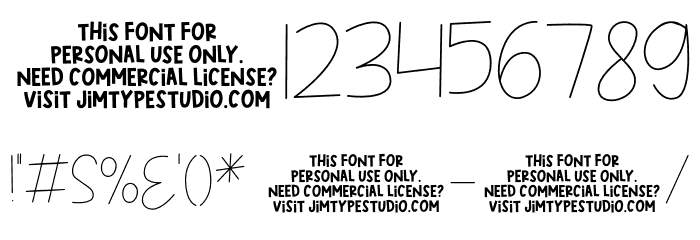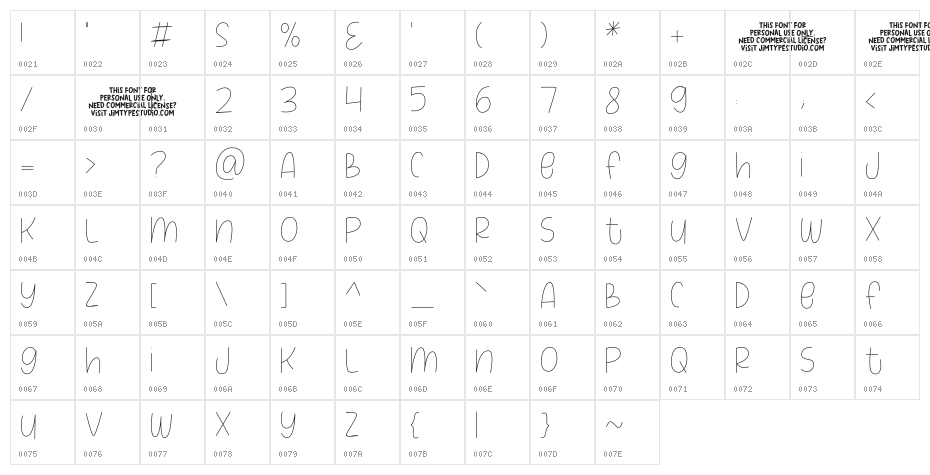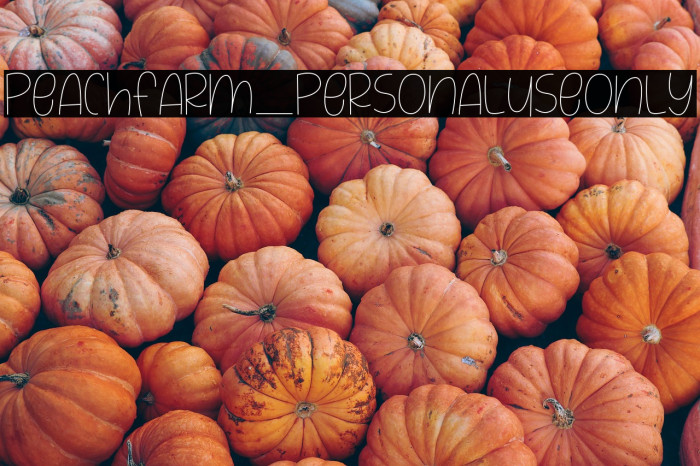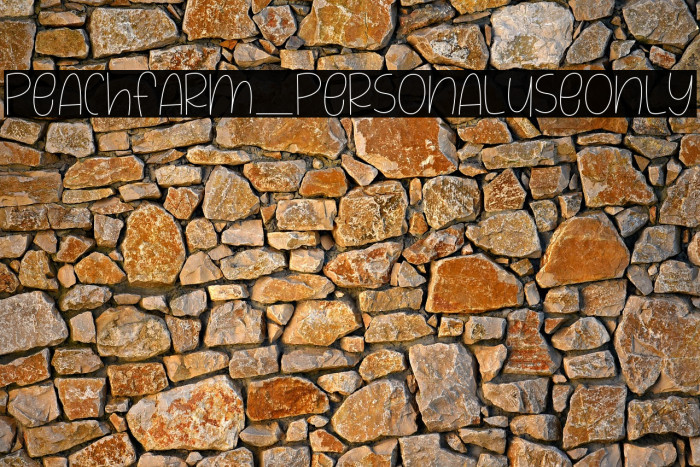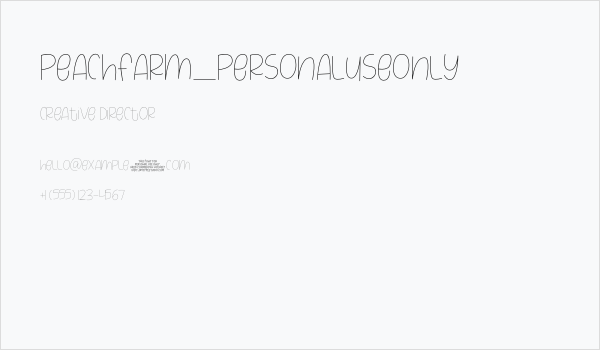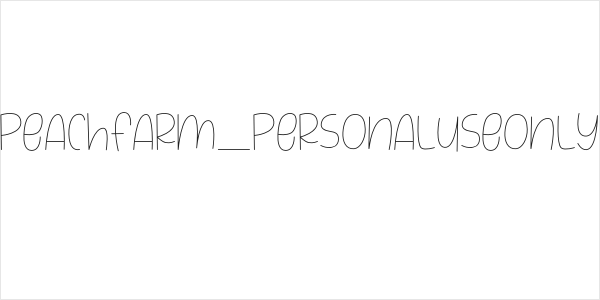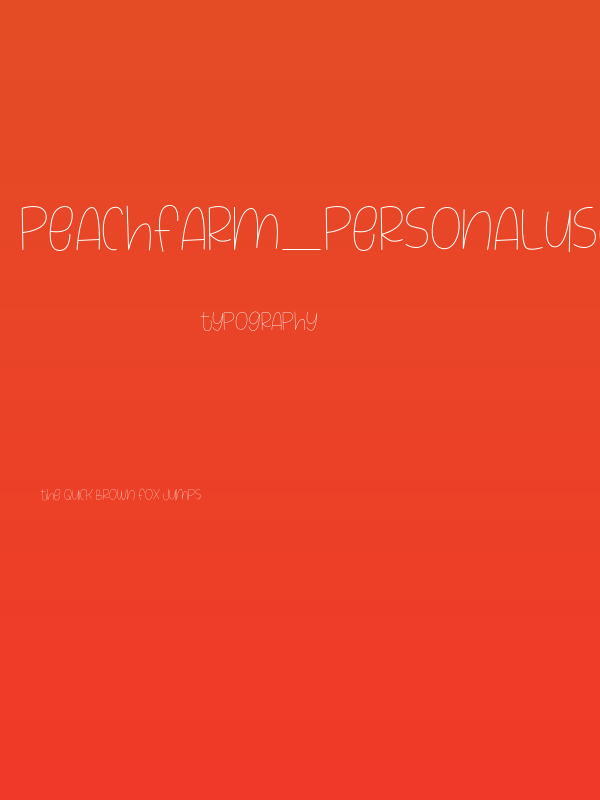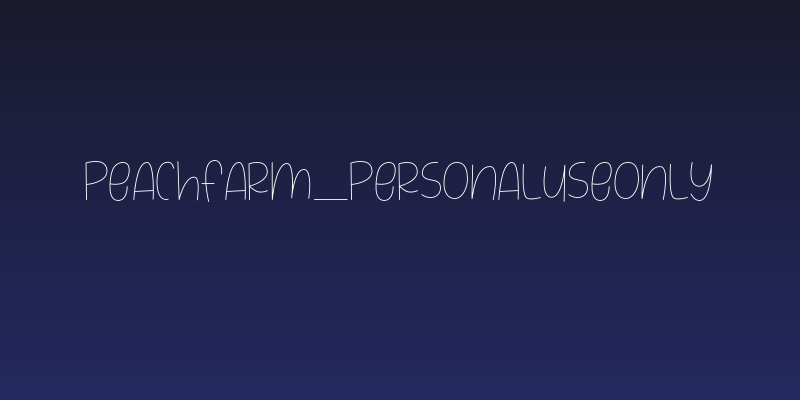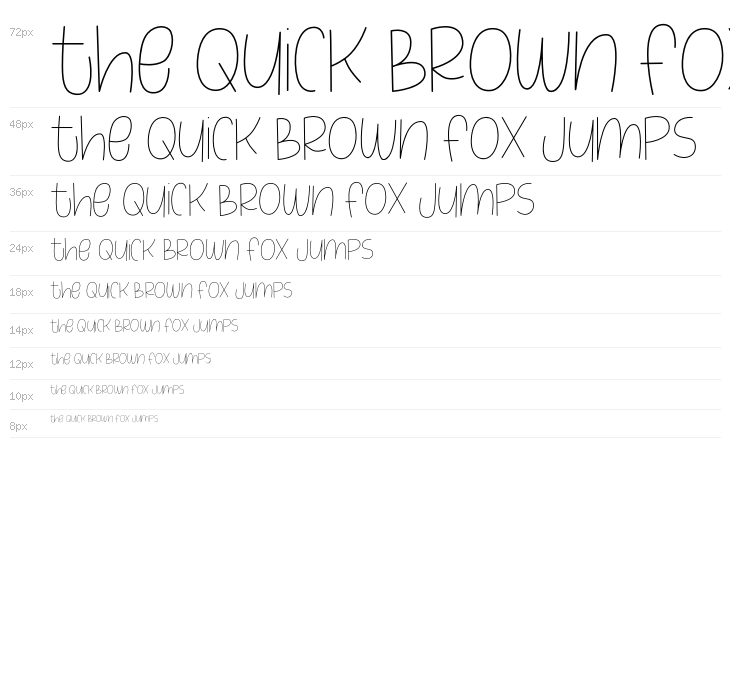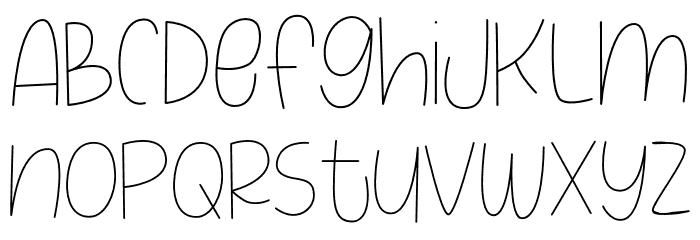
PeachFarm_PERSONALUSEONLY Font
PeachFarm_PERSONALUSEONLY Description
This font features a playful and whimsical handwritten style, characterized by its tall, narrow letterforms and slightly irregular strokes. The uppercase and lowercase letters maintain a consistent flow, with rounded edges and a casual, friendly appearance. The numerals and special characters complement the alphabet with similar design elements, ensuring a cohesive look across all text. The overall aesthetic is informal and approachable, making it suitable for projects that require a personal touch.
| Use Case | Headlines, Informal text, Personal projects |
| Proposed Projects | Ideal for greeting cards, children's books, personal blogs, and informal branding projects. |